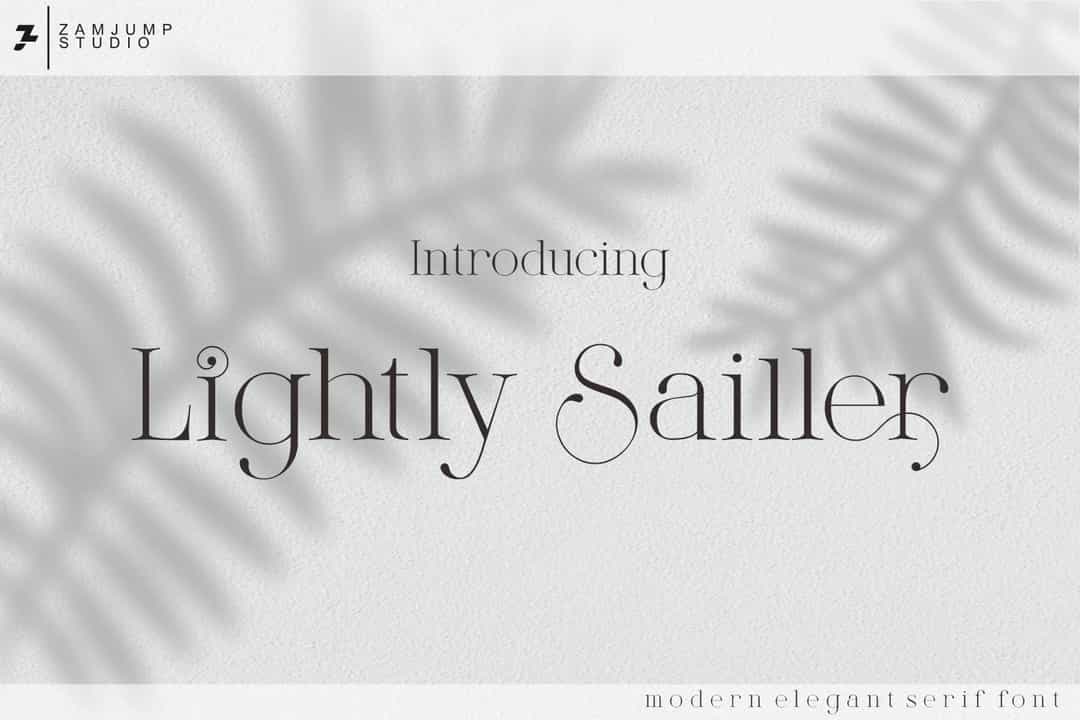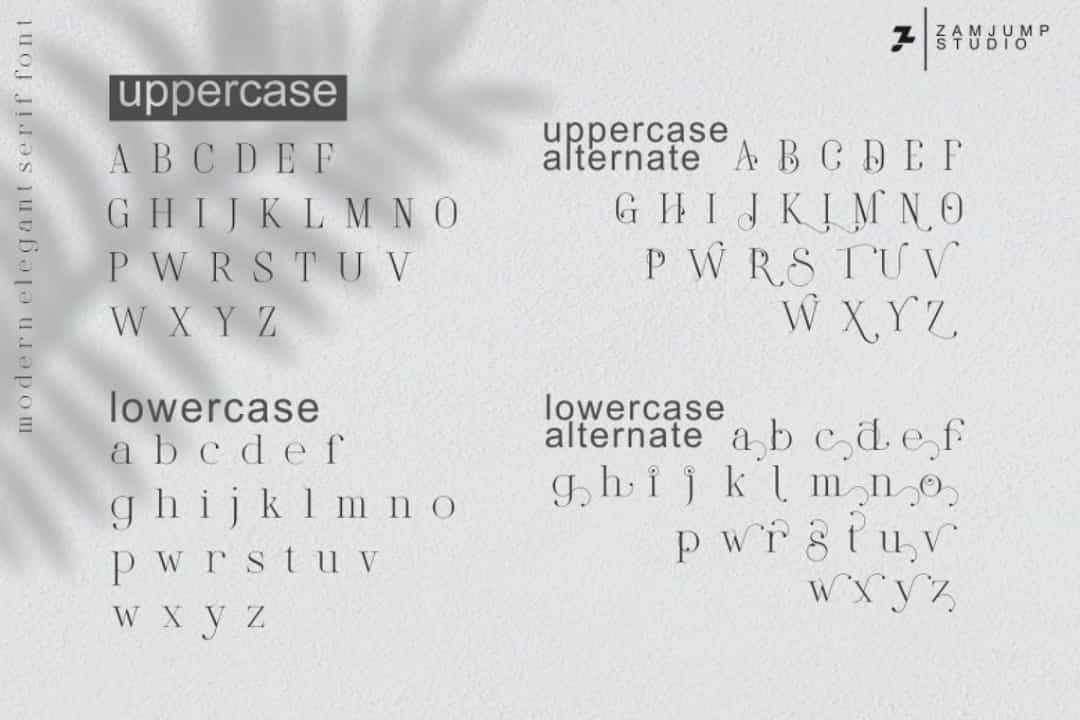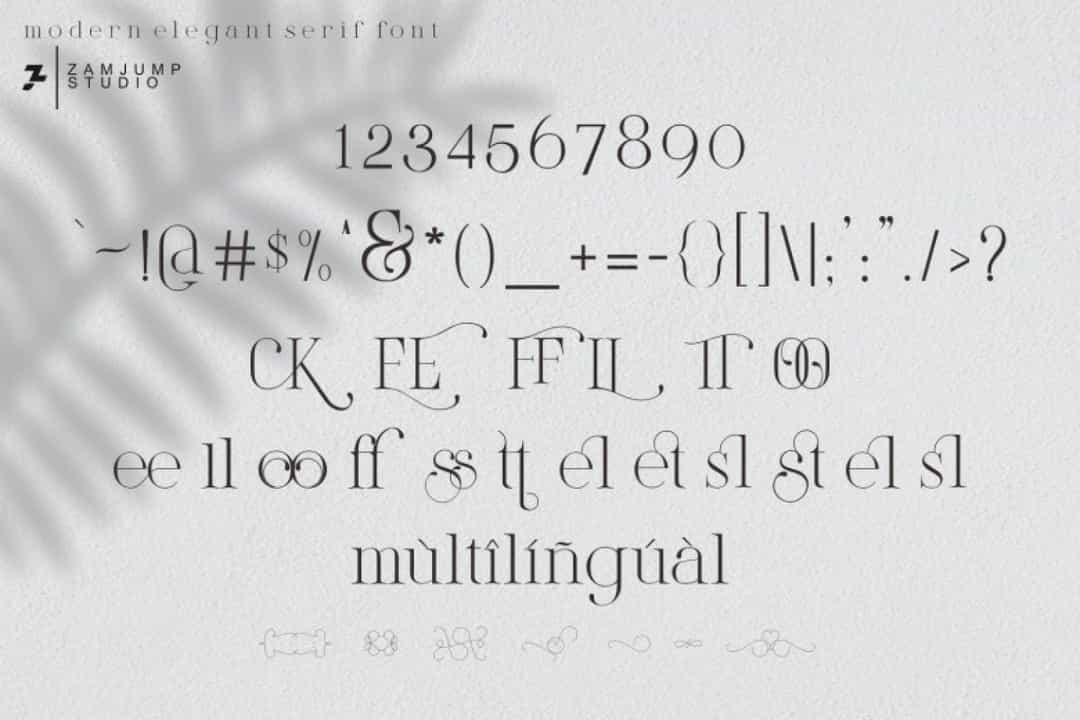
Lightly Sailler is an exquisite new serif font designed to add classic appeal to your project. Crafted with elegant curves and sharp serifs for added beauty, Lightly Sailler Serif feels sophisticated yet nostalgic while leaving enough of a simplistic design for body or heading styles.